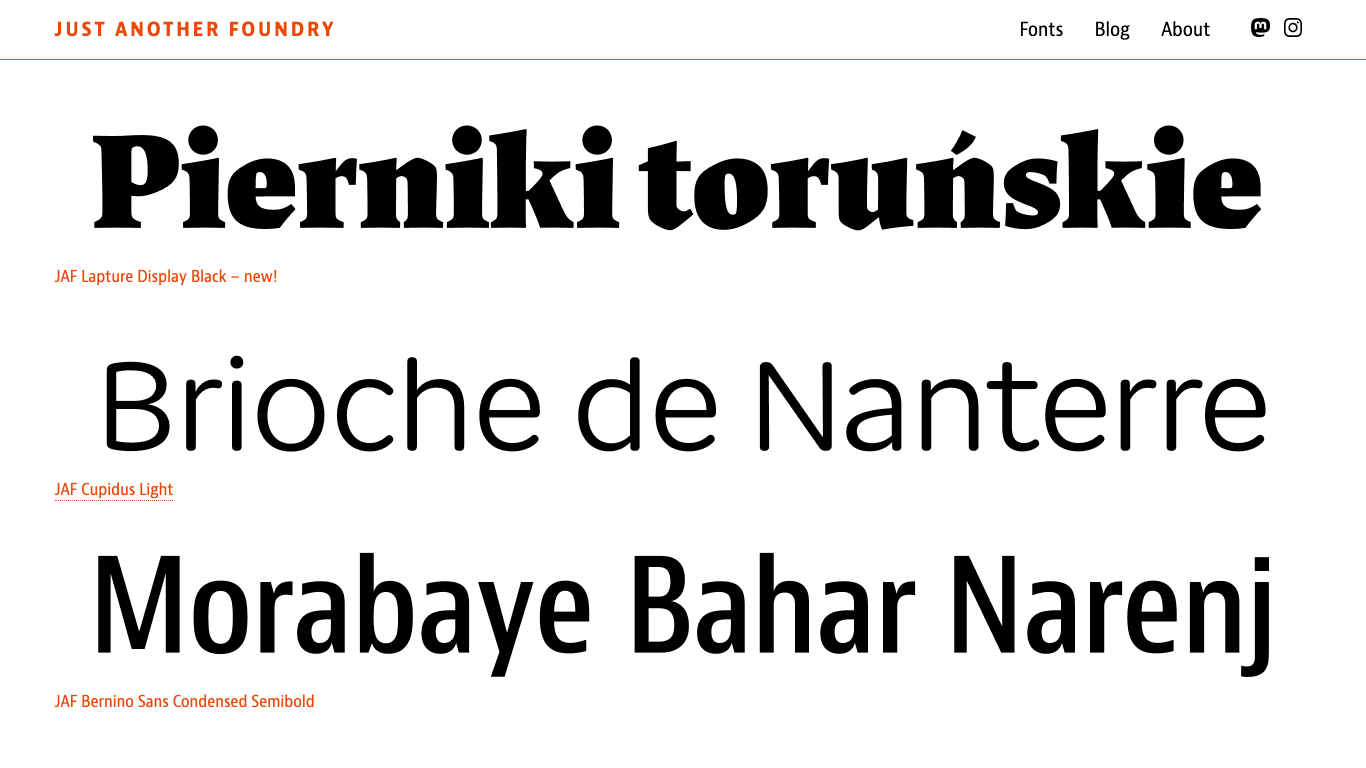
Just Another Foundry
Germany
2004
​Just Another Foundry (JAF) is a German type design studio founded in 2004 by type designer Tim Ahrens. In 2011, typographer Shoko Mugikura joined the foundry. Notable typefaces include JAF Bernini Sans, JAF Herb, JAF Lapture, and JAF Cupidus—each award-winning and praised for blending typographic tradition with contemporary design.
JAF has worked with clients like Crown Equipment, OECD, and Seiko, with typefaces such as Cupidus, Bernini Sans, Herb, and Lapture earning honors from TDC and ATypI.